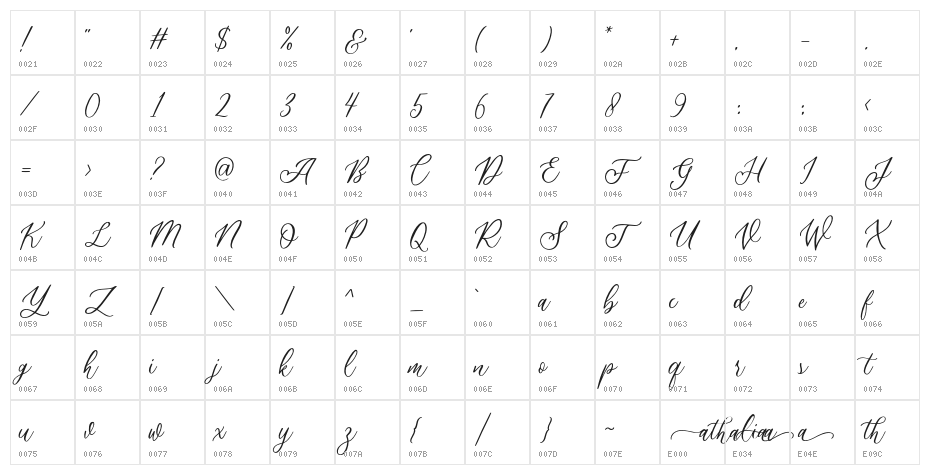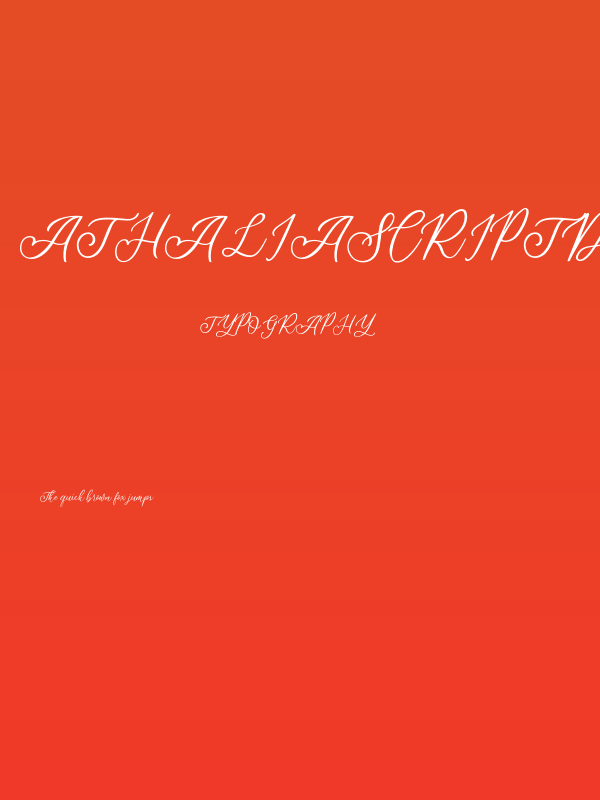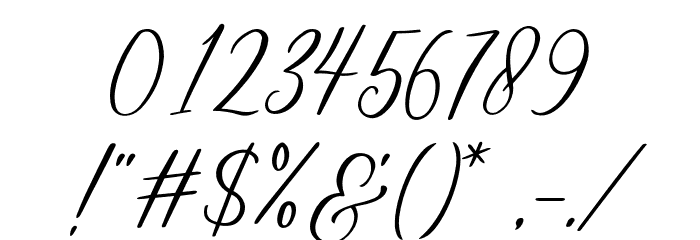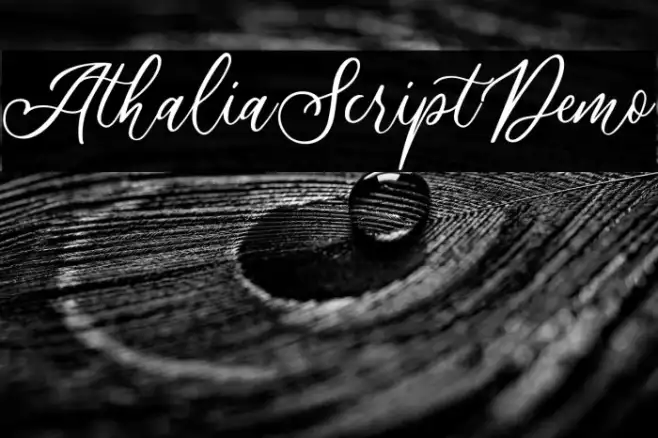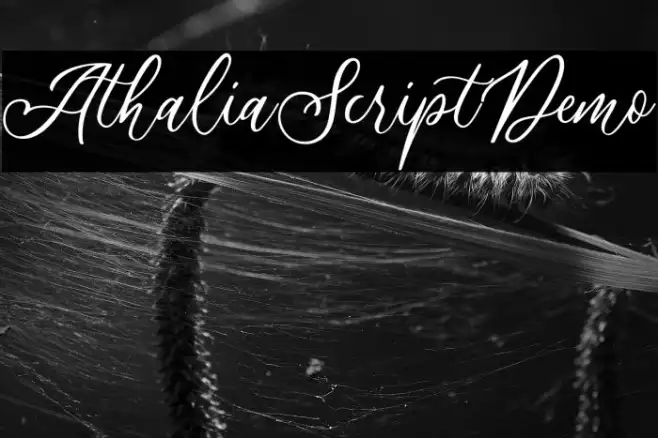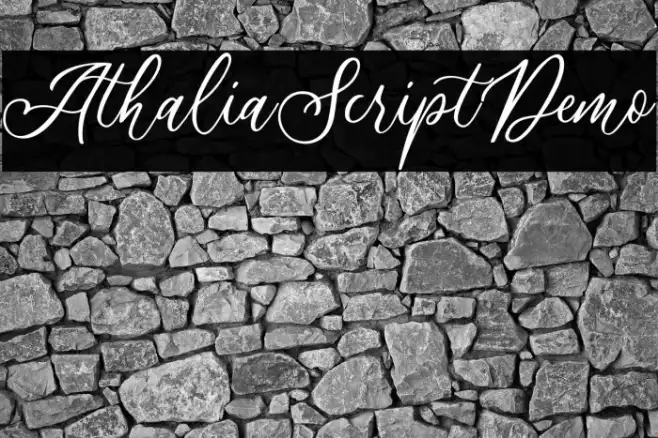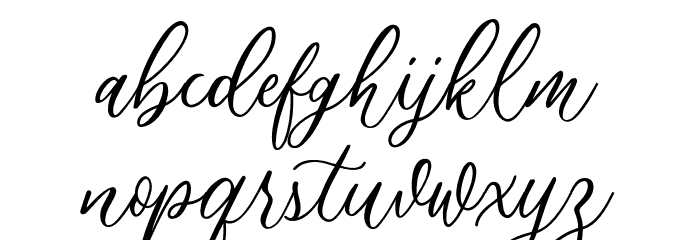
AthaliaScriptDemo Font
AthaliaScriptDemo Description
This elegant script font features flowing, cursive letters with a classic and sophisticated appearance. The uppercase letters are ornate and sweeping, while the lowercase letters maintain a graceful continuity. The numerals are stylishly integrated, complementing the overall script style. The special characters are designed to match the fluidity of the alphabet, making it a versatile choice for various design needs. The font's delicate curves and loops give it a refined and artistic look, suitable for projects that require a touch of elegance and creativity.
| Proposed Projects | Ideal for wedding invitations, elegant branding, greeting cards, and decorative signage. |